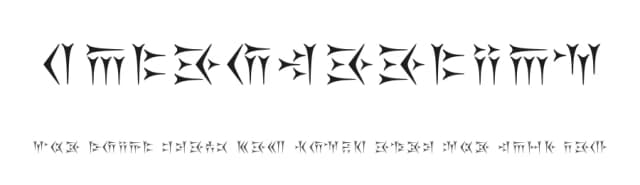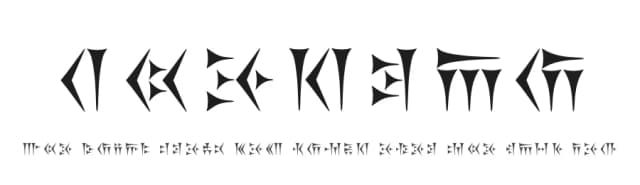
About Zarathustra Font
Developed with the help of Mr. Keyvan Mahmmoudi, from the University of Teheran, the glyphs are allocated over very convenient keys, but also works for Unicode. This font includes every known glyph for this ancient inscript. This is a free non-commercial font and should not be selled by any means. For more details on how to use the font, permissions or sugestions, contact me:
Zarathustra Font is a versatile dingbats font that works for both headings and body text. Pair it with a contrasting sans-serif or serif font to add visual interest and a clear distinction between titles and body copy.
Zarathustra Font